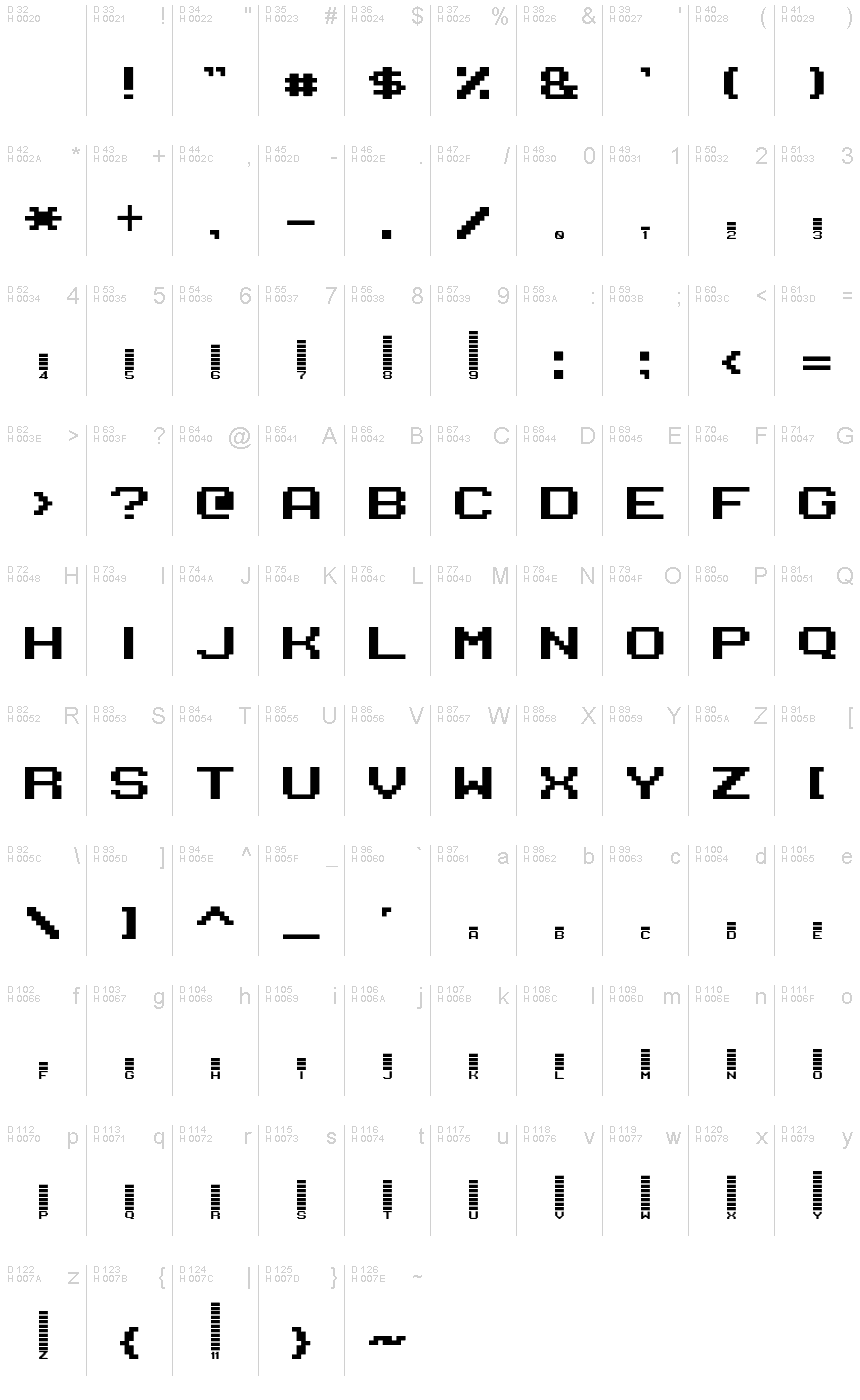
395 equalizer 2
395 equalizer 2 is a wide, decorative digital font designed by Anthony Robinson. Perfect for creating dynamic and eye-catching logos, posters, websites and even video game titles.